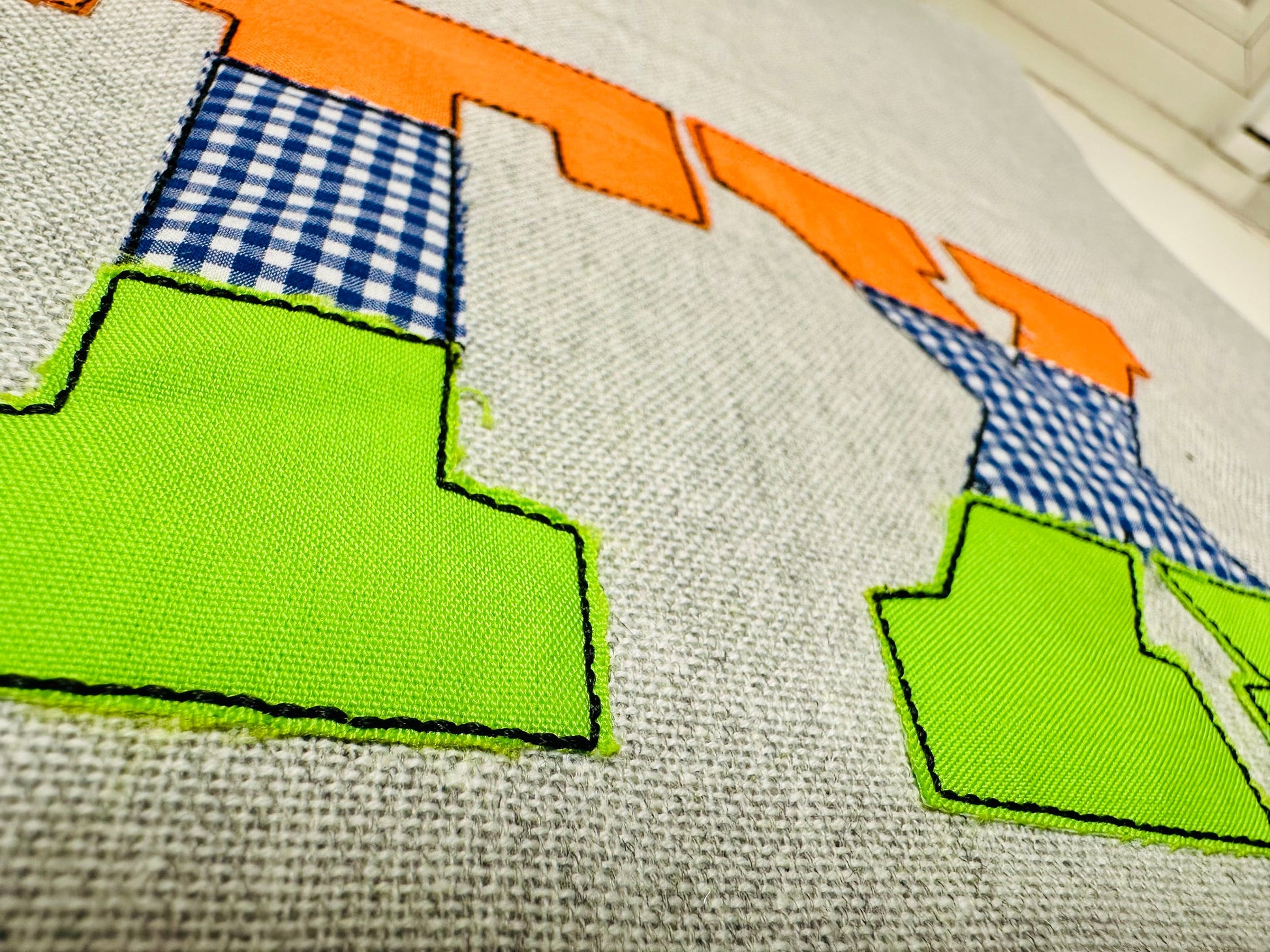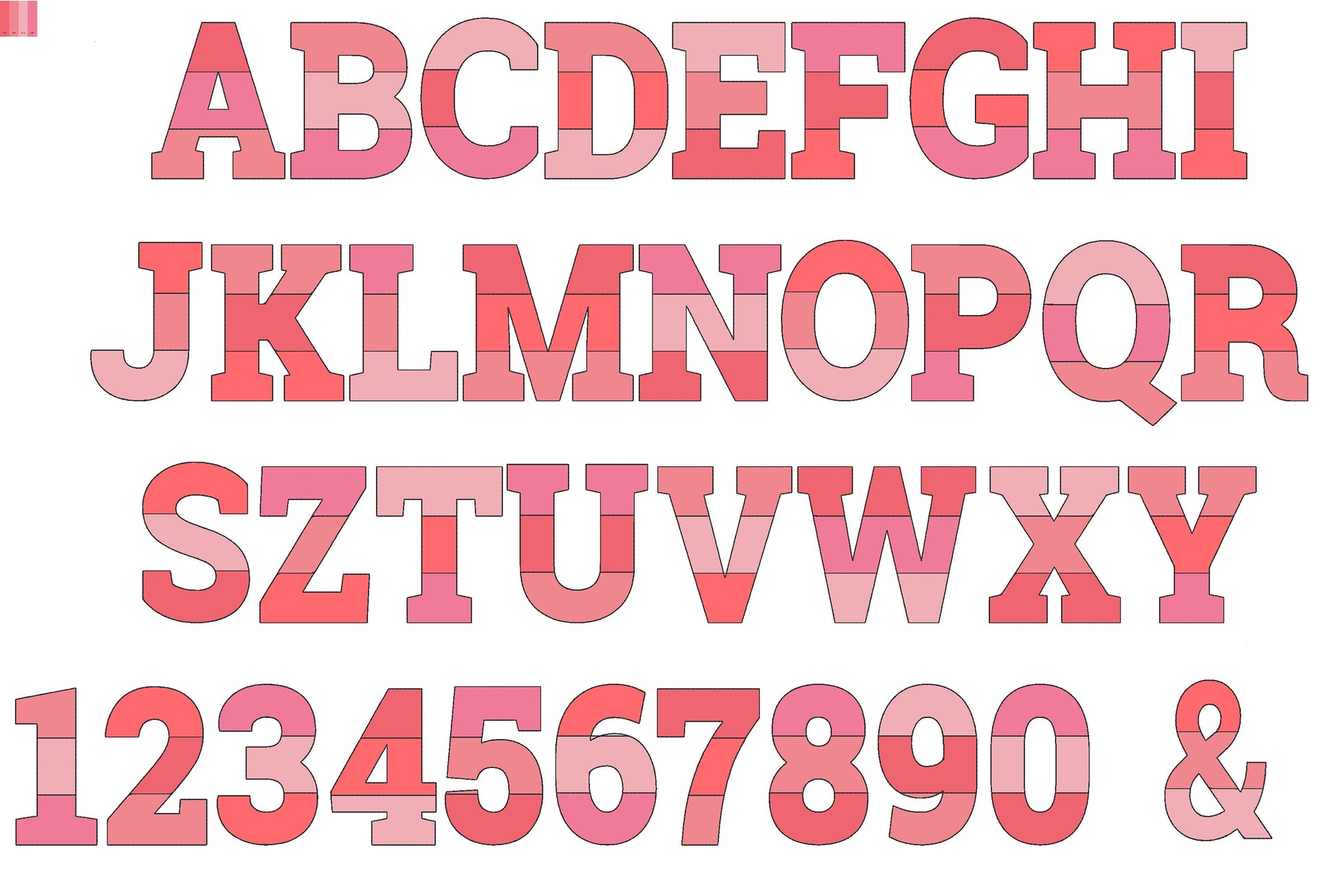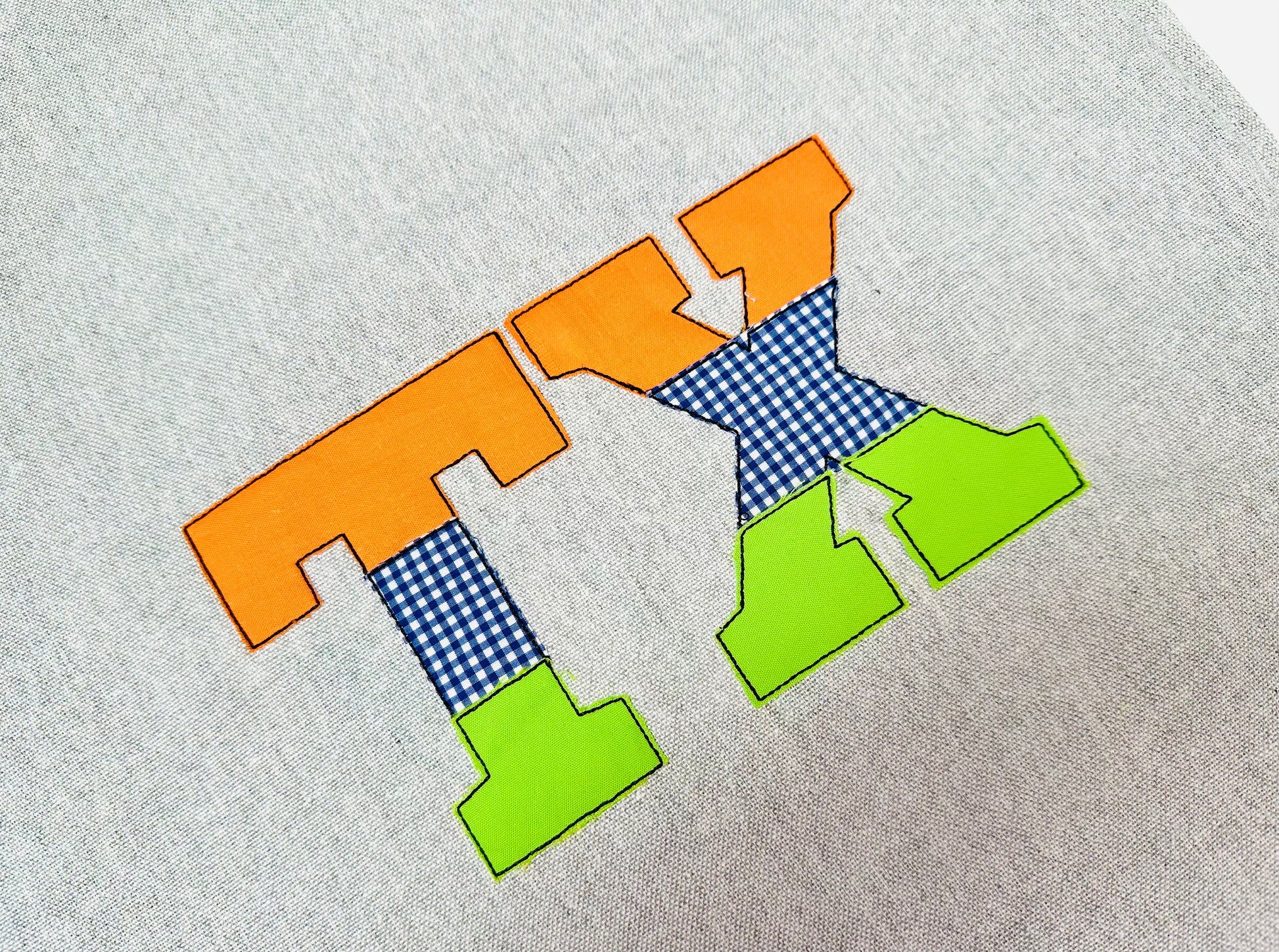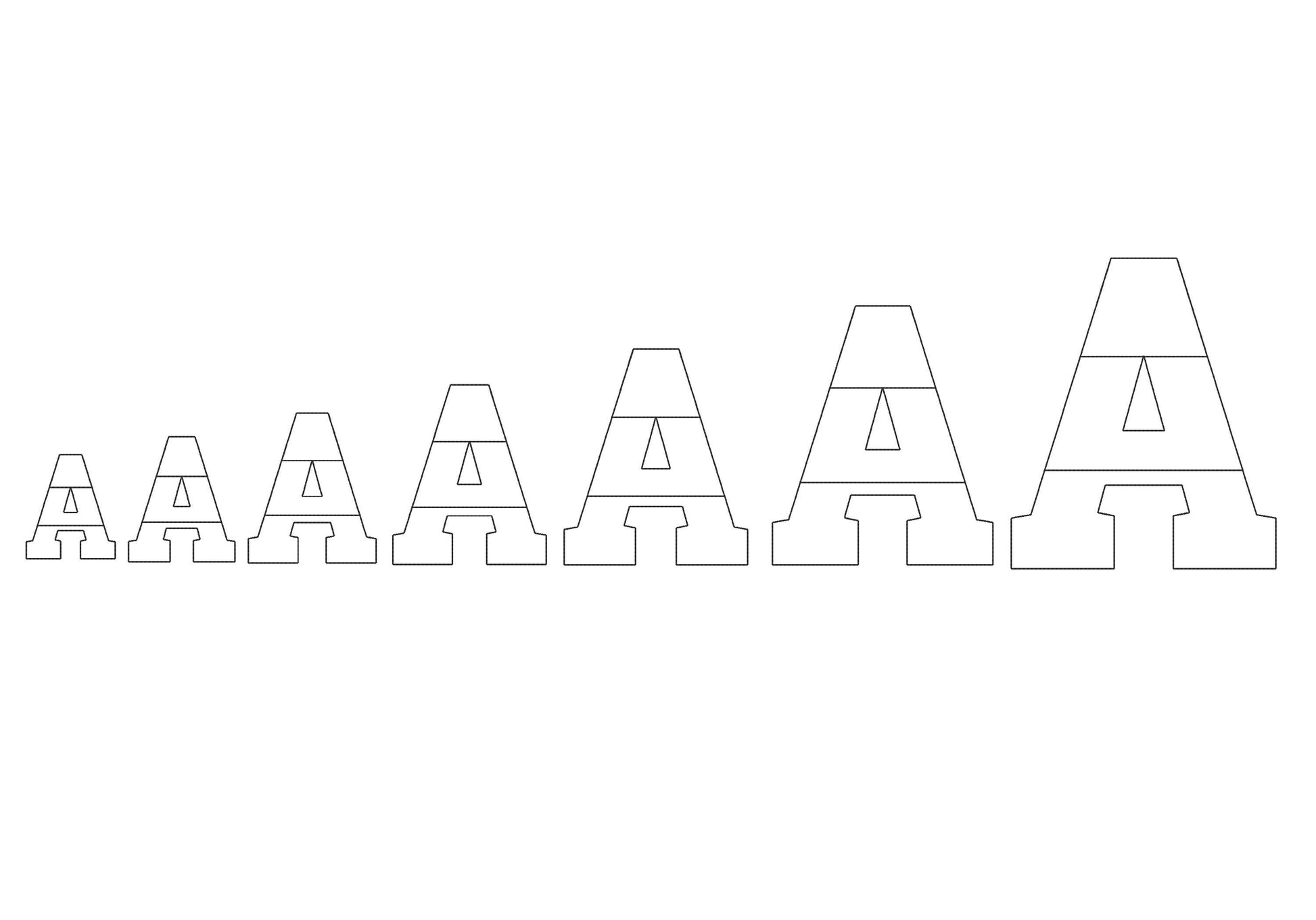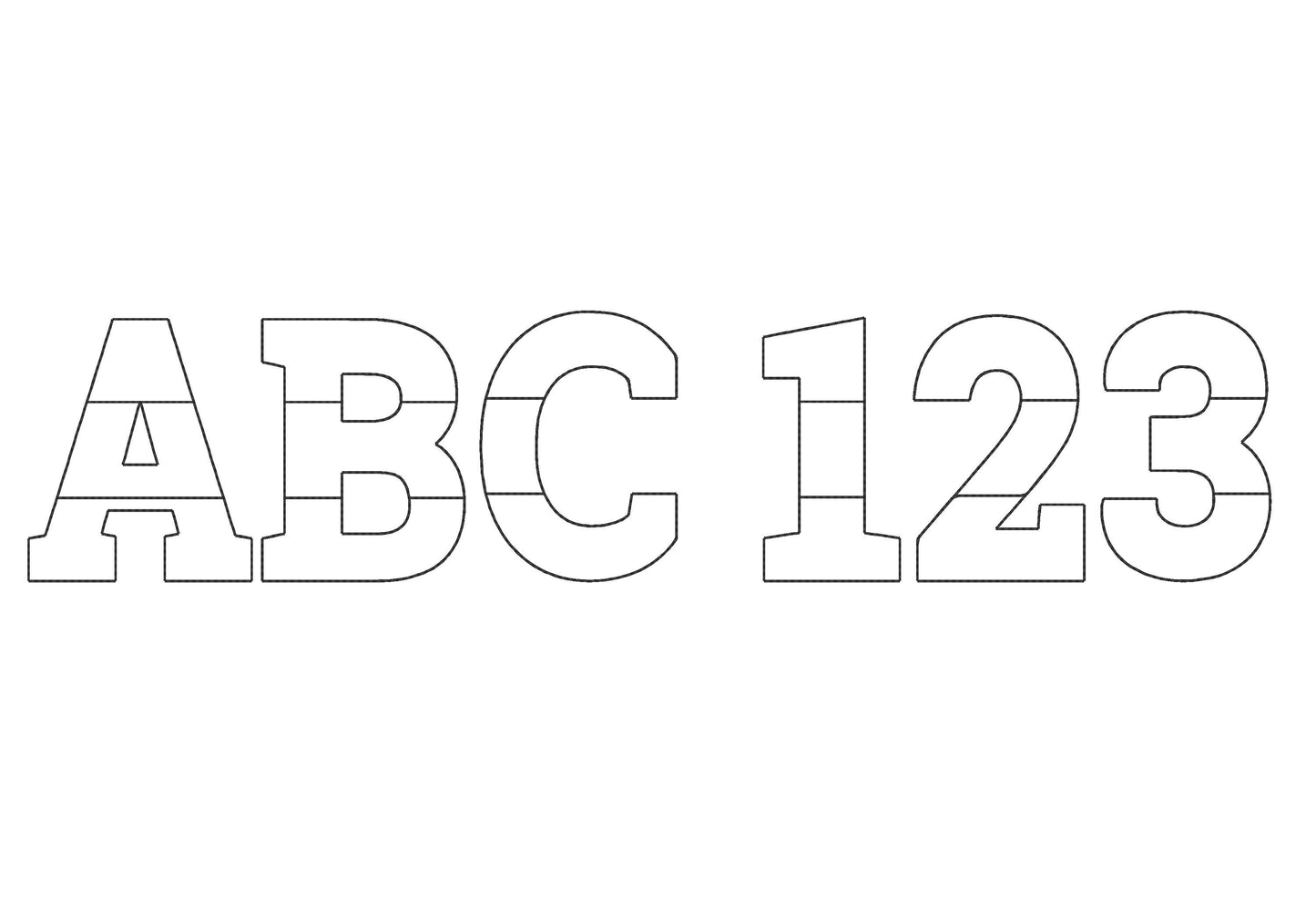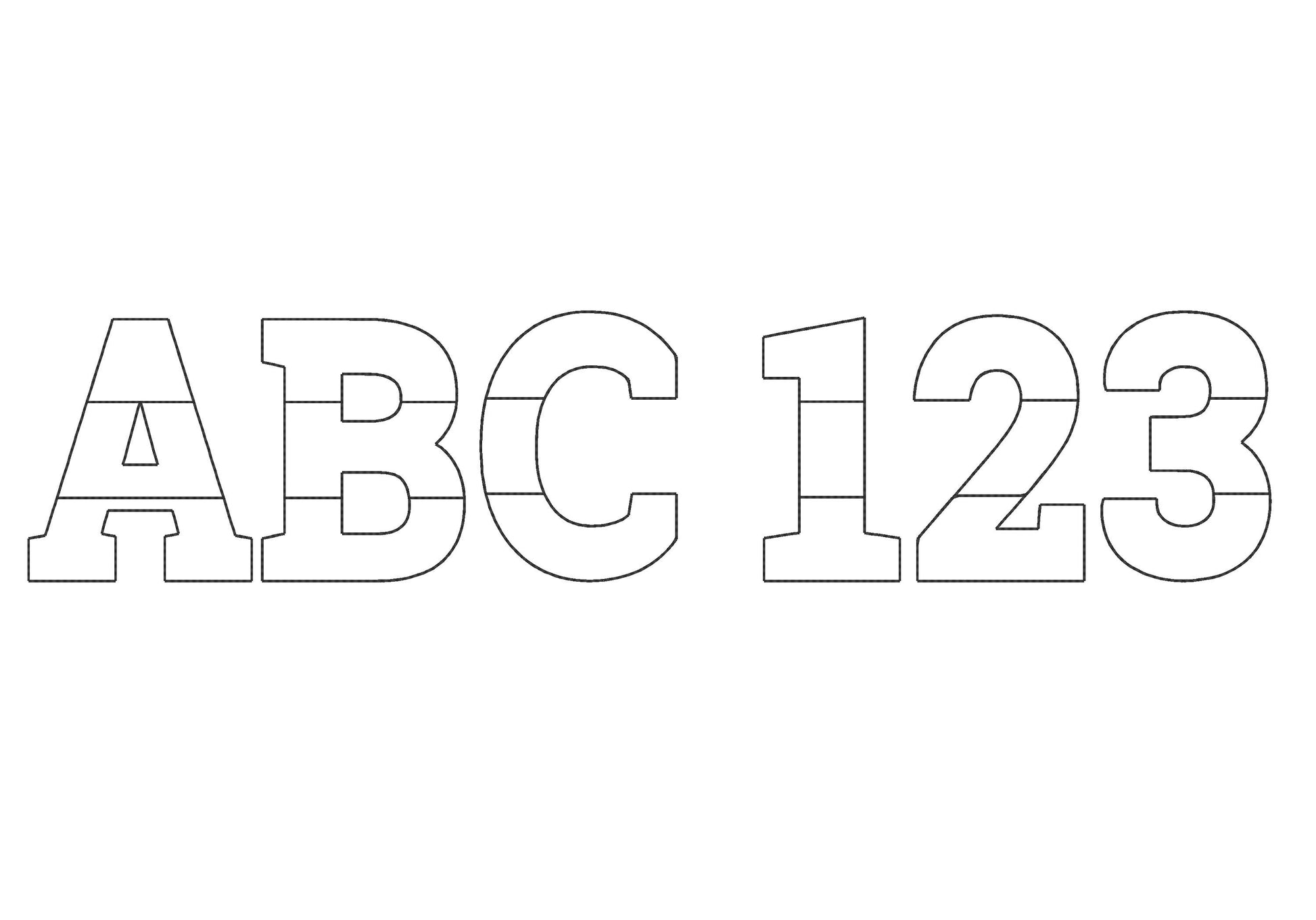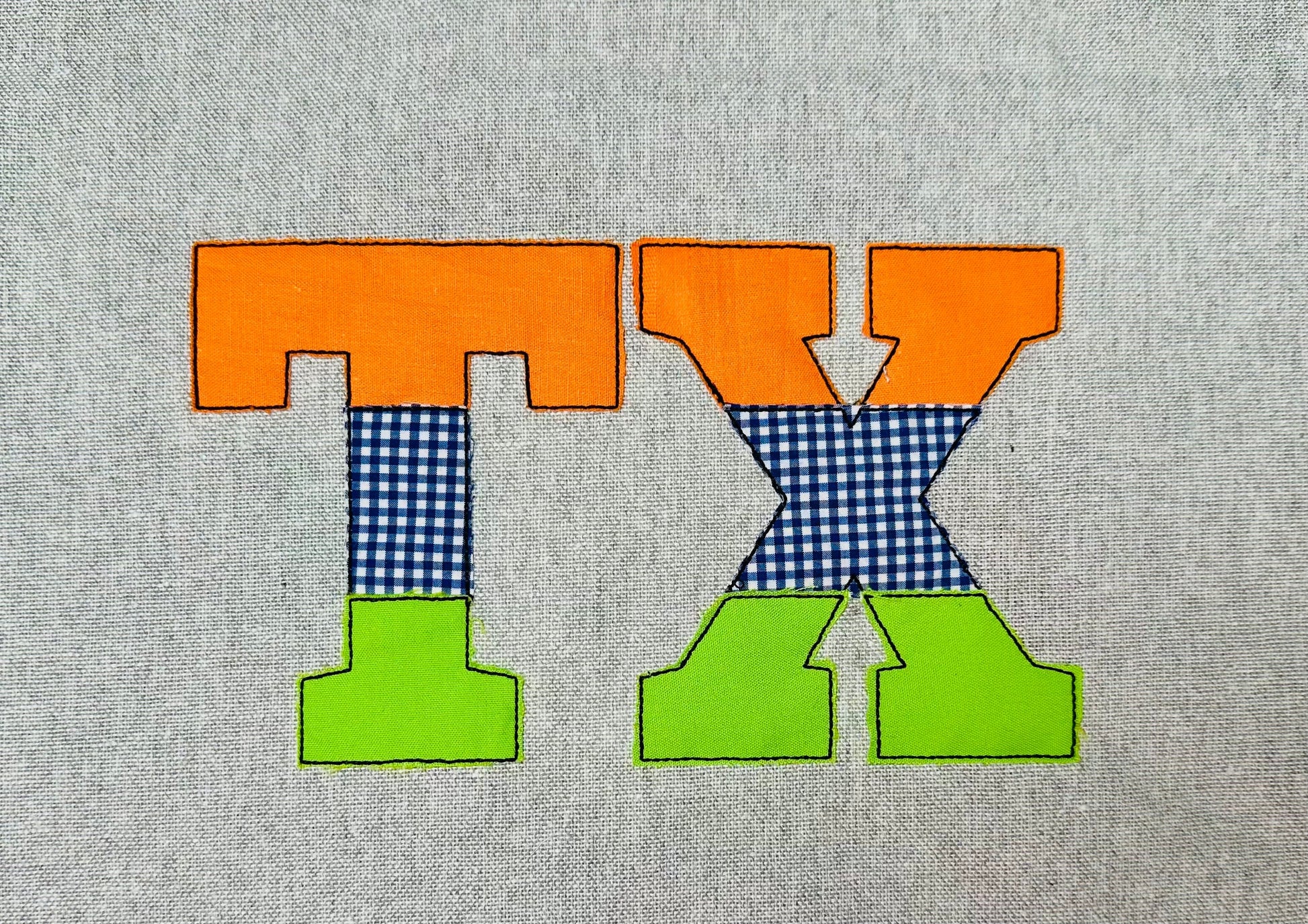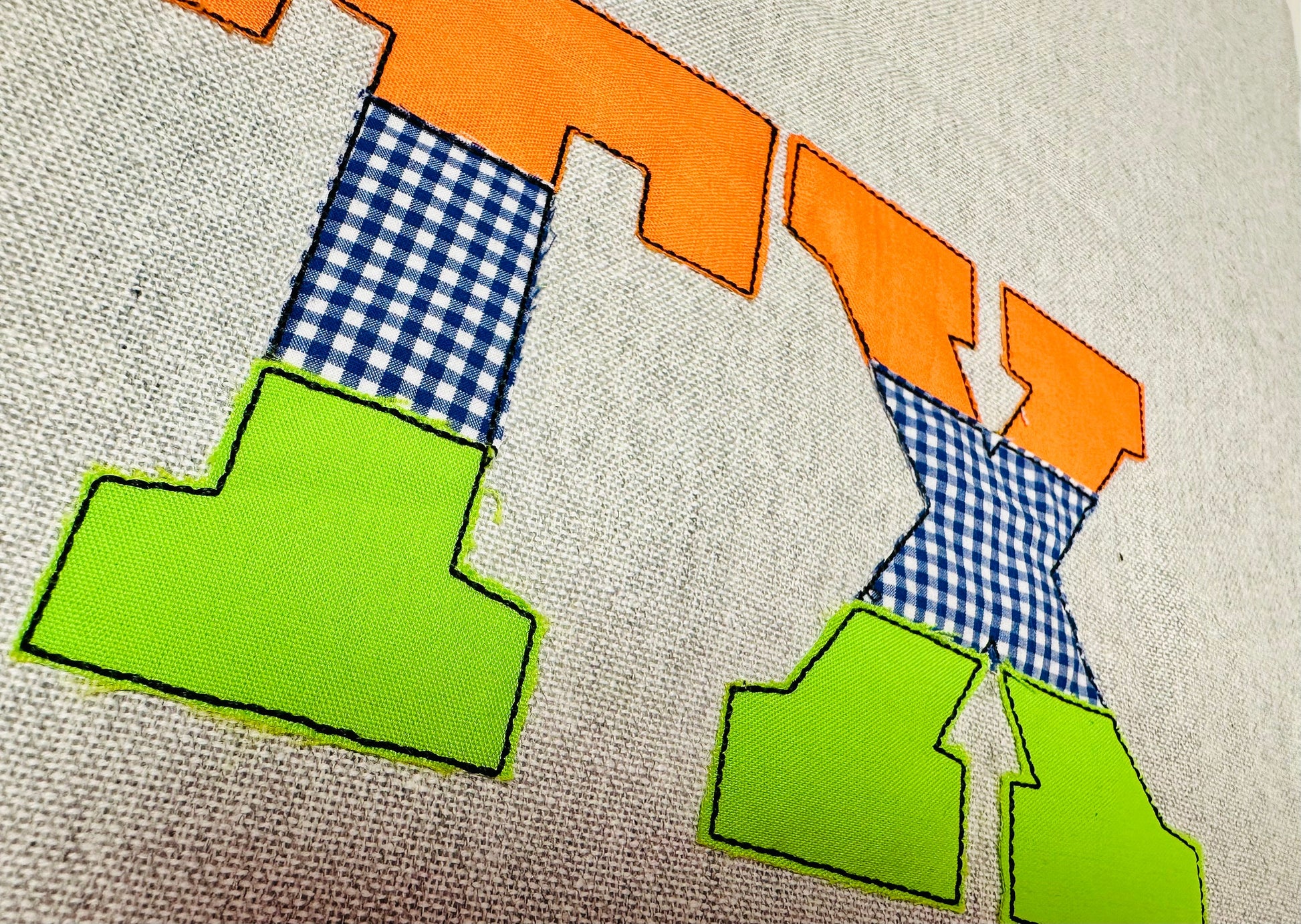
Split Raggedy Applique Alphabet
Or click to open the linkA light raggedy applique block font with split, multicolor letters and a bean stitch outline. Nice for patchwork-style names, monograms, quilts and kids' clothes.
The letters come in seven sizes: 2, 2.5, 3, 3.5, 4, 5 and 6 inches. Each letter is split into applique parts with open, raggedy edges and a bean stitch outline, so you can mix fabrics. Includes uppercase letters A to Z, numbers 0 to 9 and an ampersand.
- Split raggedy applique block font, bean stitch outline
- Uppercase A to Z, numbers 0 to 9, ampersand
- 7 sizes, 2 to 6 in